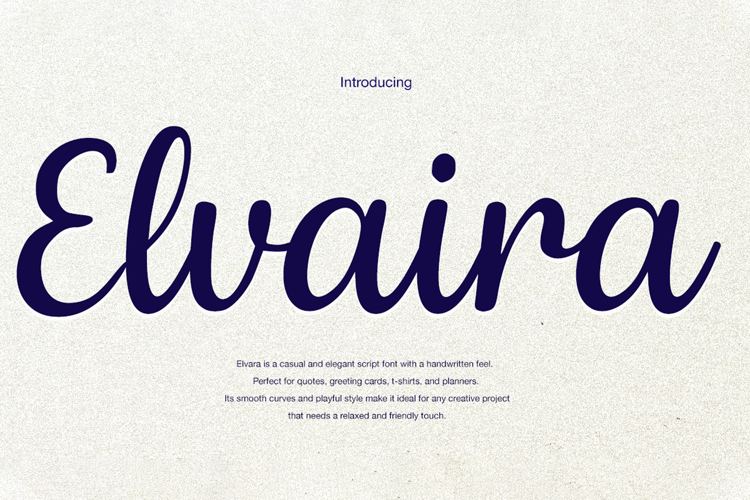
Simple stylish
Elvaira – Elegant Handwritten Script Font
Elvaira is a smooth and modern script font with a relaxed handwritten style. Featuring gentle curves and flowing strokes, it brings a clean, stylish feel to a wide range of design applications.
Ideal for use in:
✔ Branding and logo design
✔ Greeting cards and invitations
✔ Packaging and product labels
✔ Quotes, headlines, and planners
✔ Social media graphics
Its balanced letterforms and versatile look make Elvaira a strong choice for projects that require both elegance and readability.